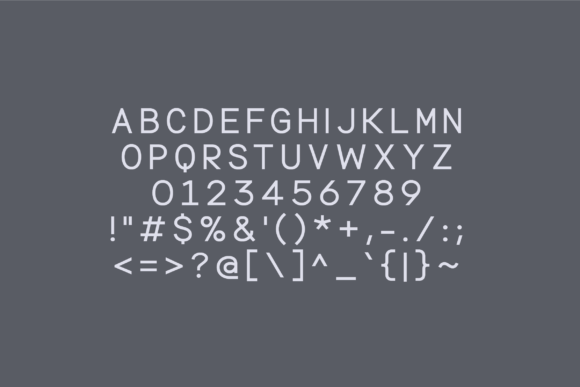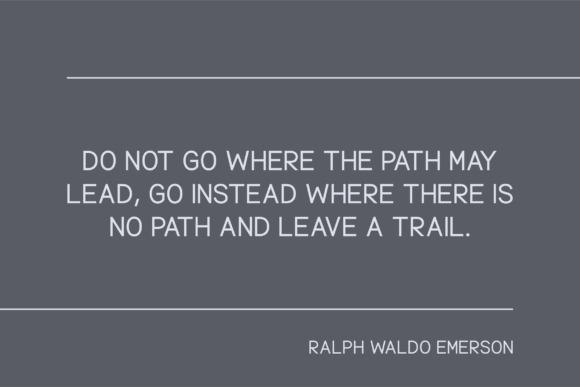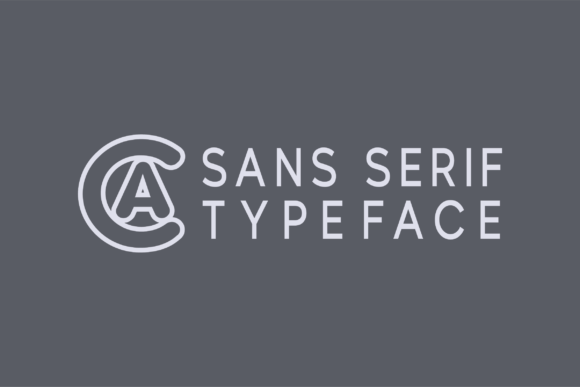
Introduction to Funville Font
Welcome to Funville, the epitome of chic sophistication within the realm of sans serif typefaces.
Flaunting polished upper characters and numbers from 0-9 with an exclusive selection of punctuation and symbols, Funville is your go-to font Its far-reaching versatility transforms ordinary into extraordinary, making it the ideal choice for an array of designing needs – be it eye-catching logos, romantic wedding invites, inspirational quotes, striking advertisements, professional print formats, or stylish magazine layouts.